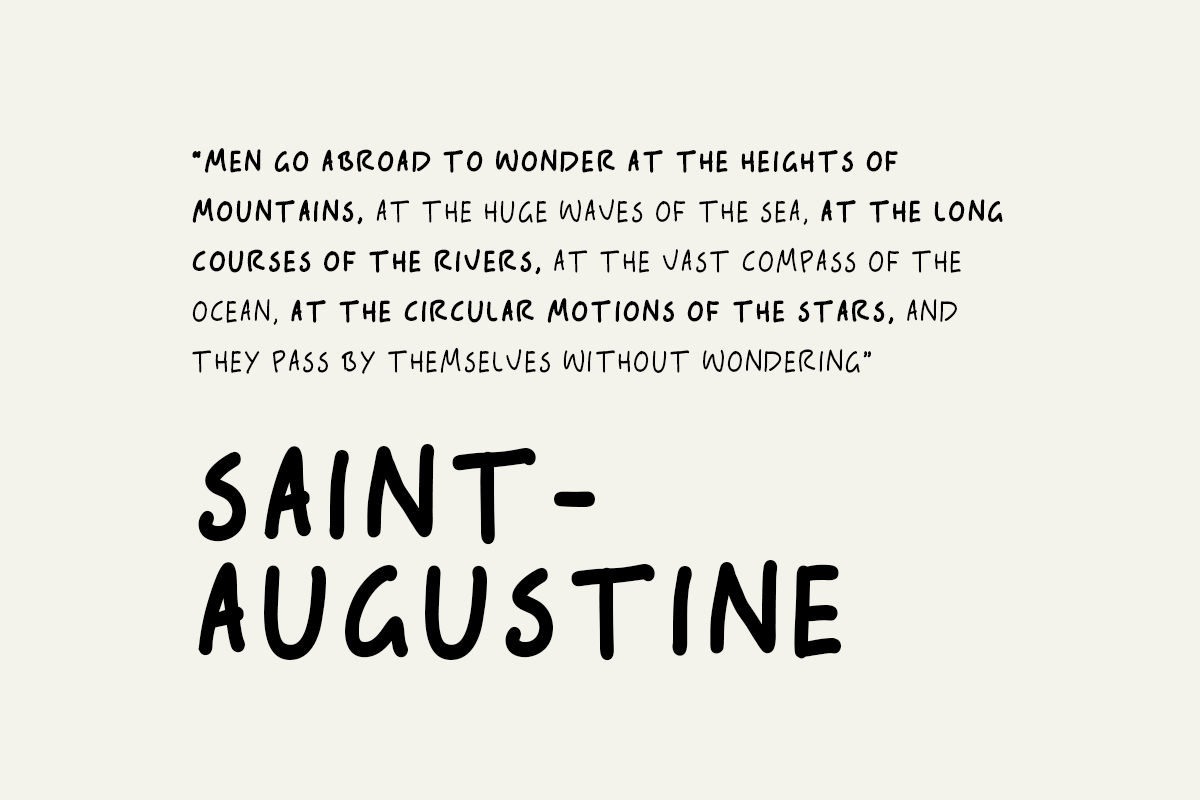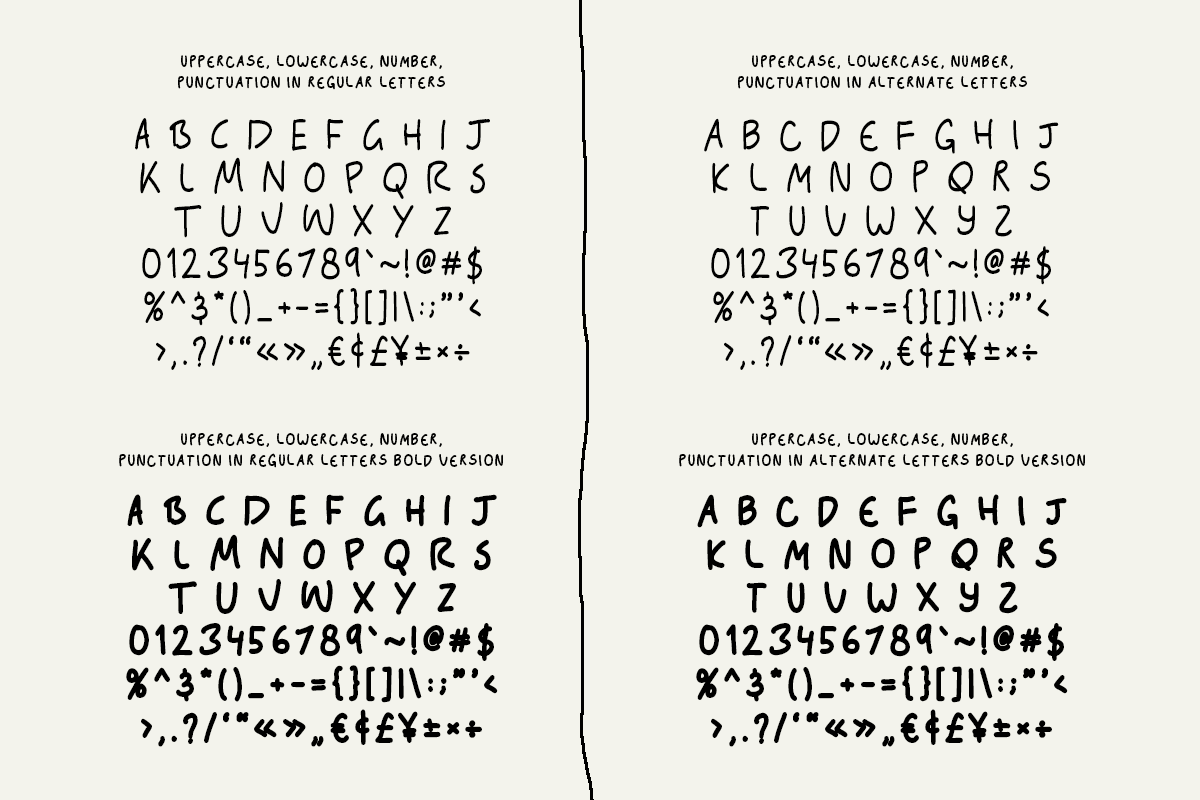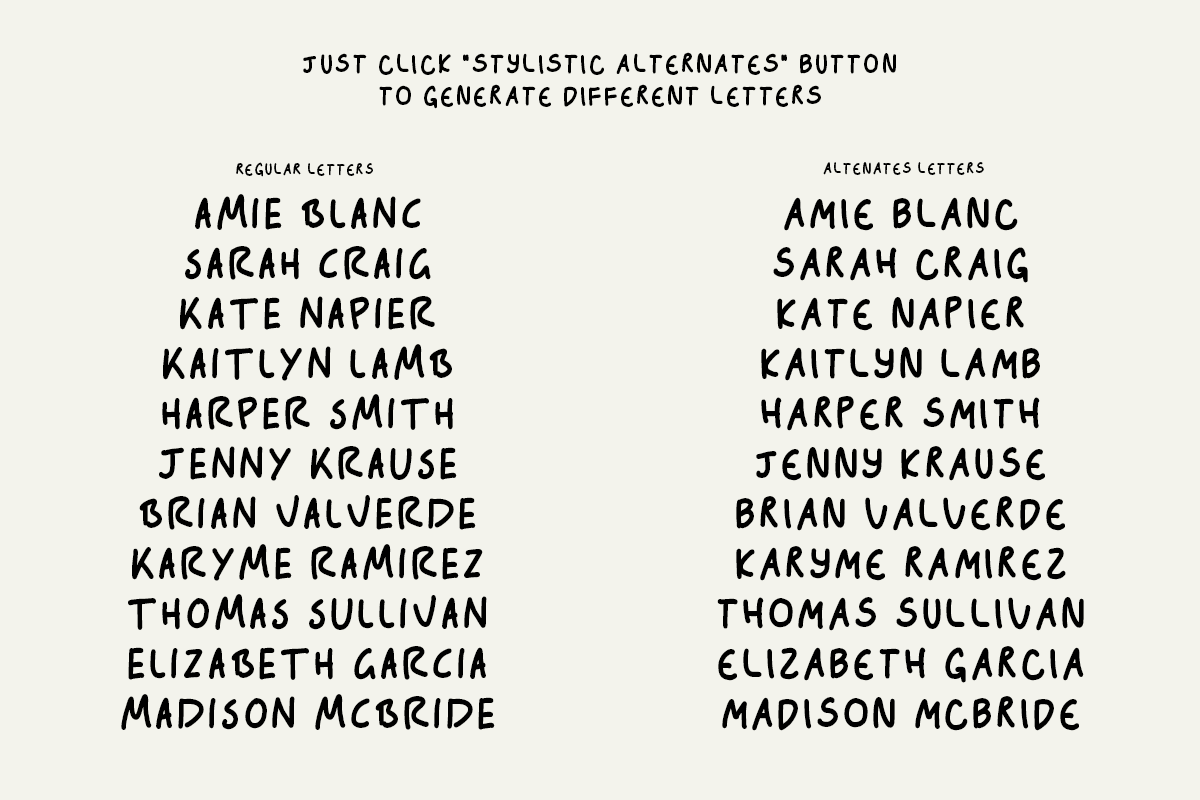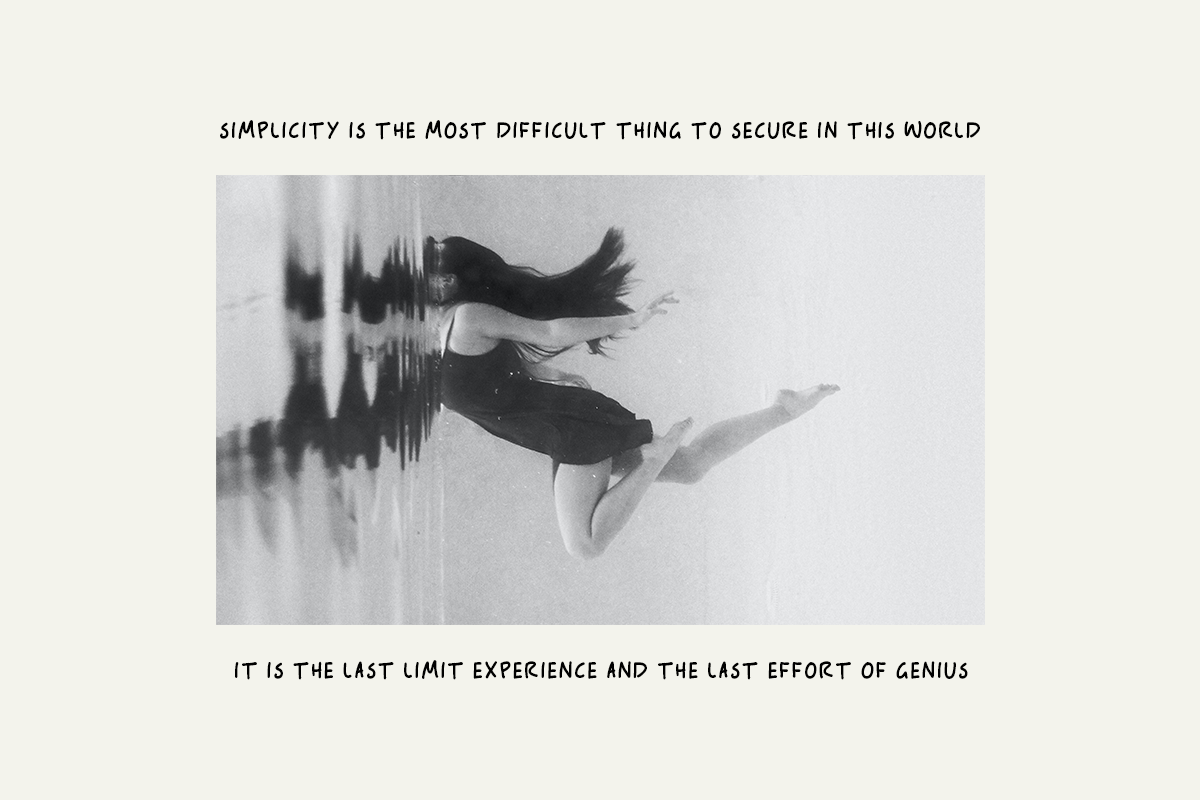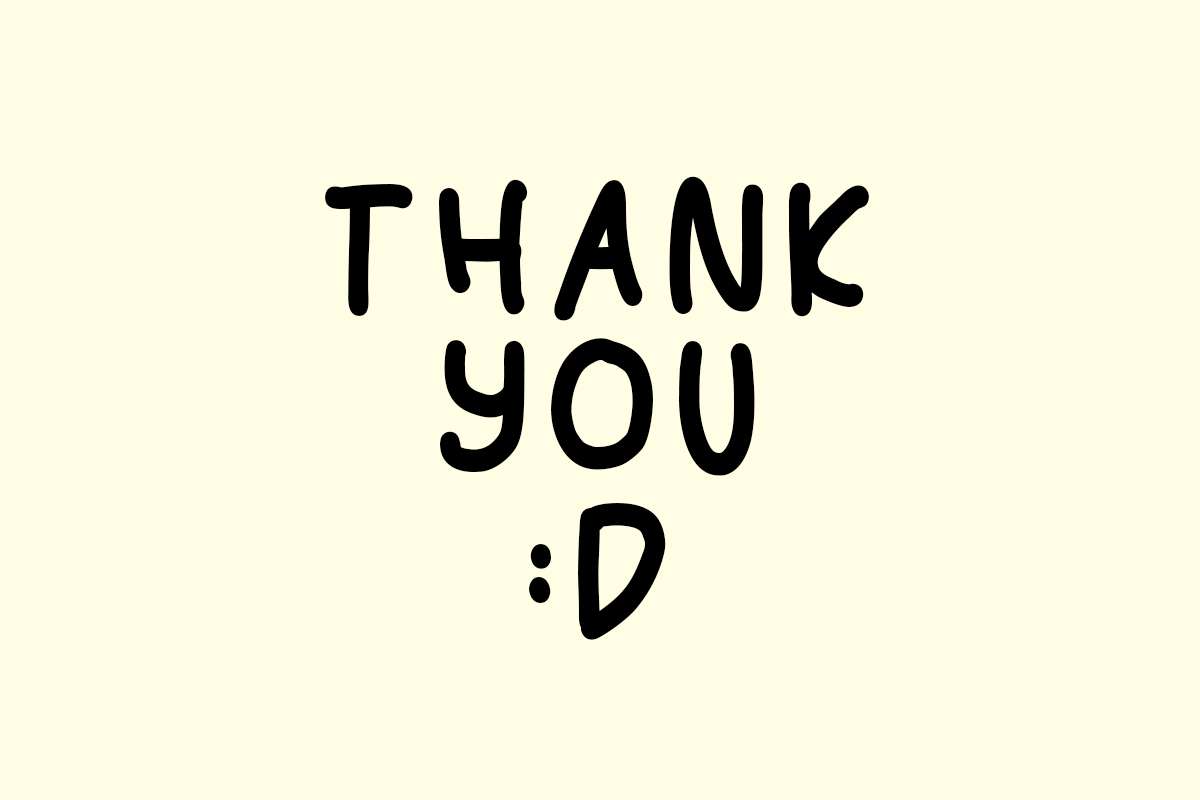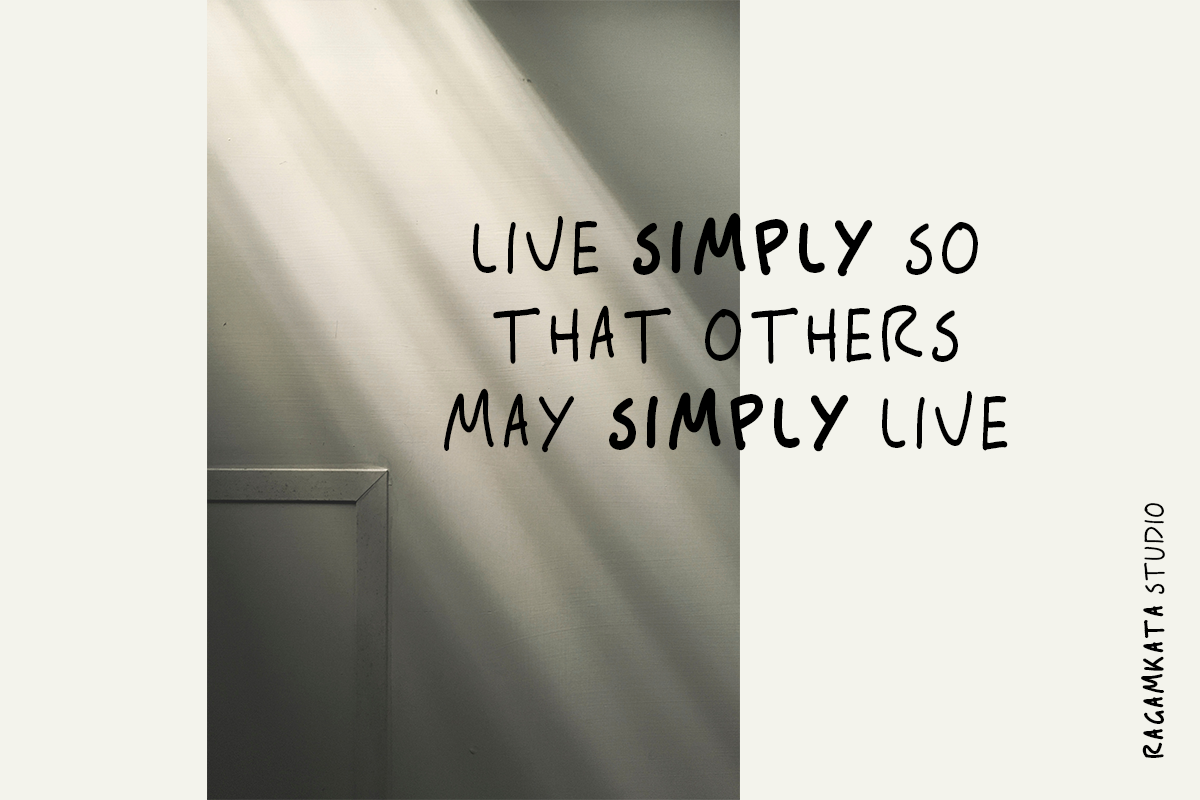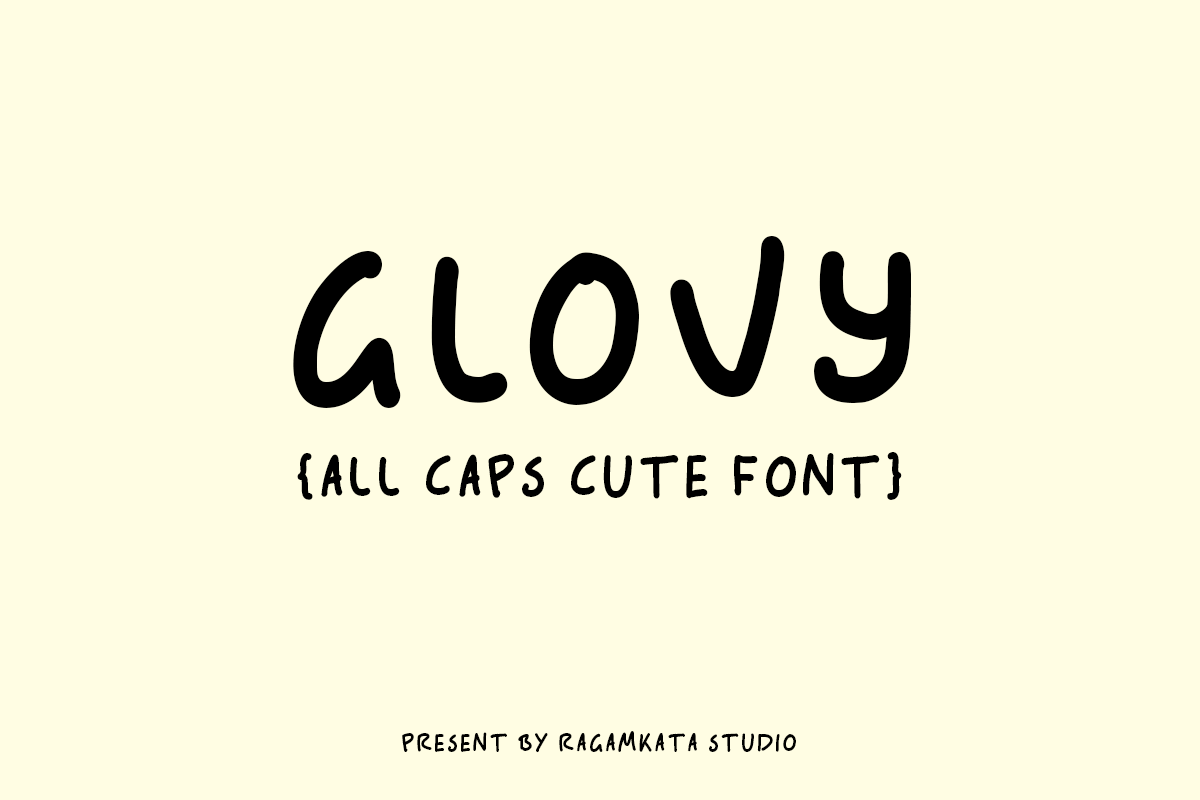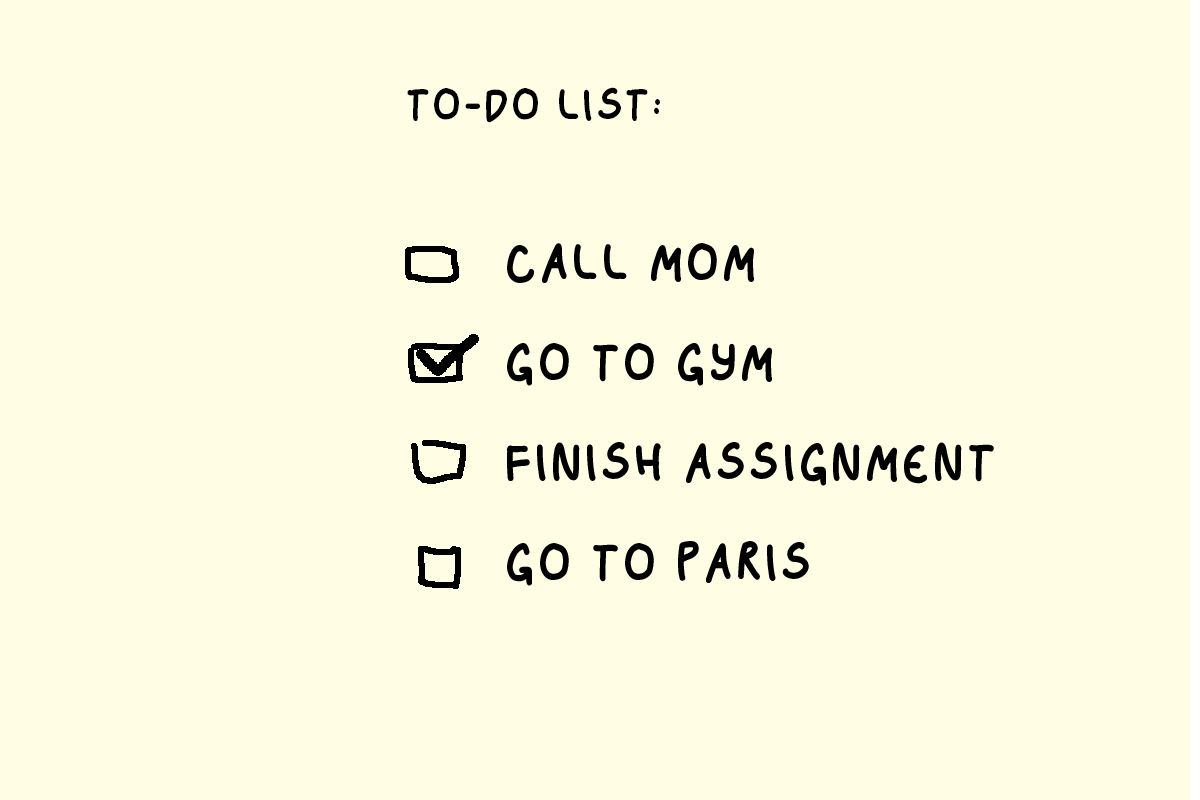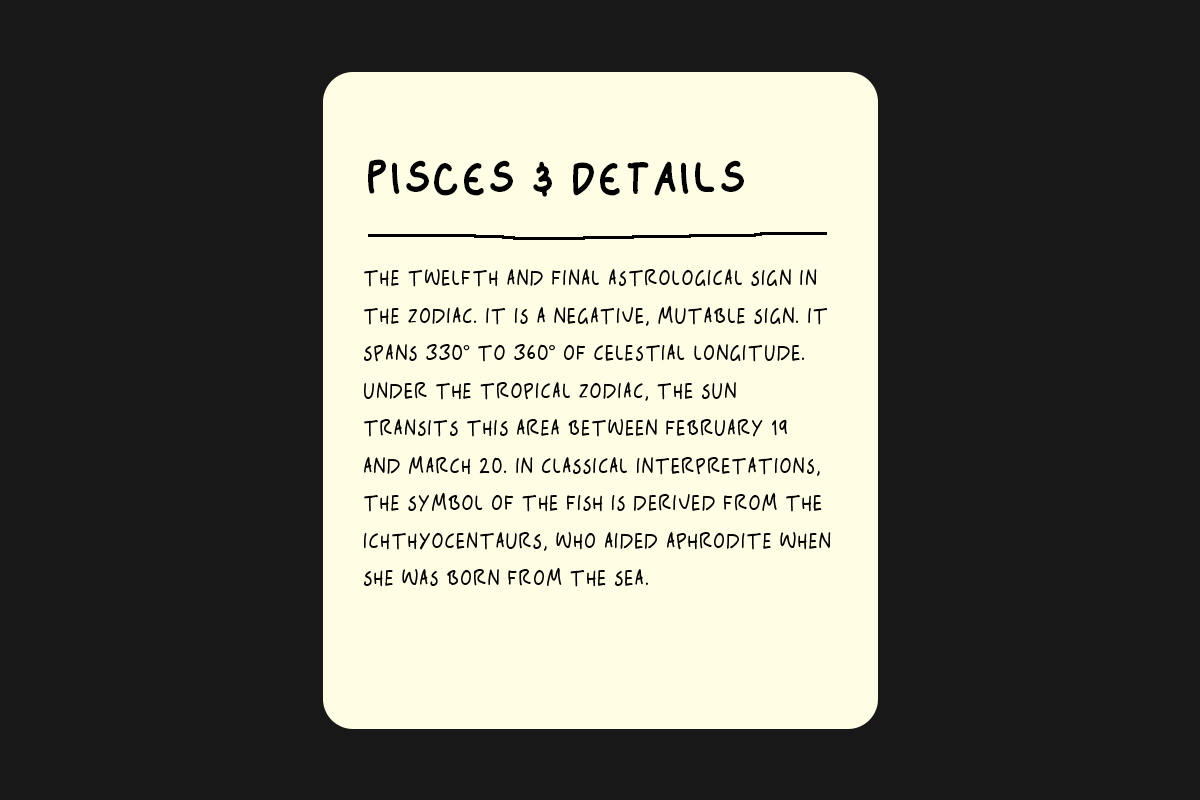
Glovy - All Caps Cute Font
Present to you new handwriting font, Glovy!
Glovy - Made from my own actual handwriting. It’s not supposed to be neat... because I don’t write neat. It doesn’t align and it’s annoyingly all in caps (but it's kinda charming right?).
Glovy - Includes 2 font styles for both regular and bold (A-Z and numerals), as well as standard and accented characters.
- Regular and Bold Version
- Full alternate by uppercase and lowercase
- Letters, numbers, symbols, and punctuation